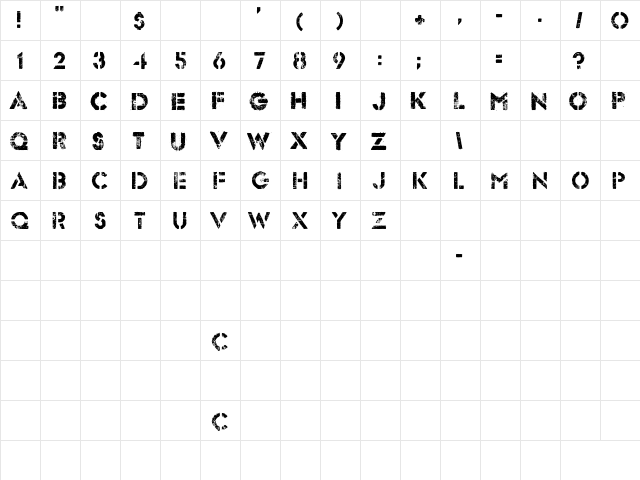
Dock 51 Regular
Design Context for Dock 51 Typeface
Dock 51 is a composed and adaptable typeface that performs quietly and consistently across a wide range of design contexts.
Pro Tip: Use Dock 51 in both headline and body roles to test its range before committing to a single application.